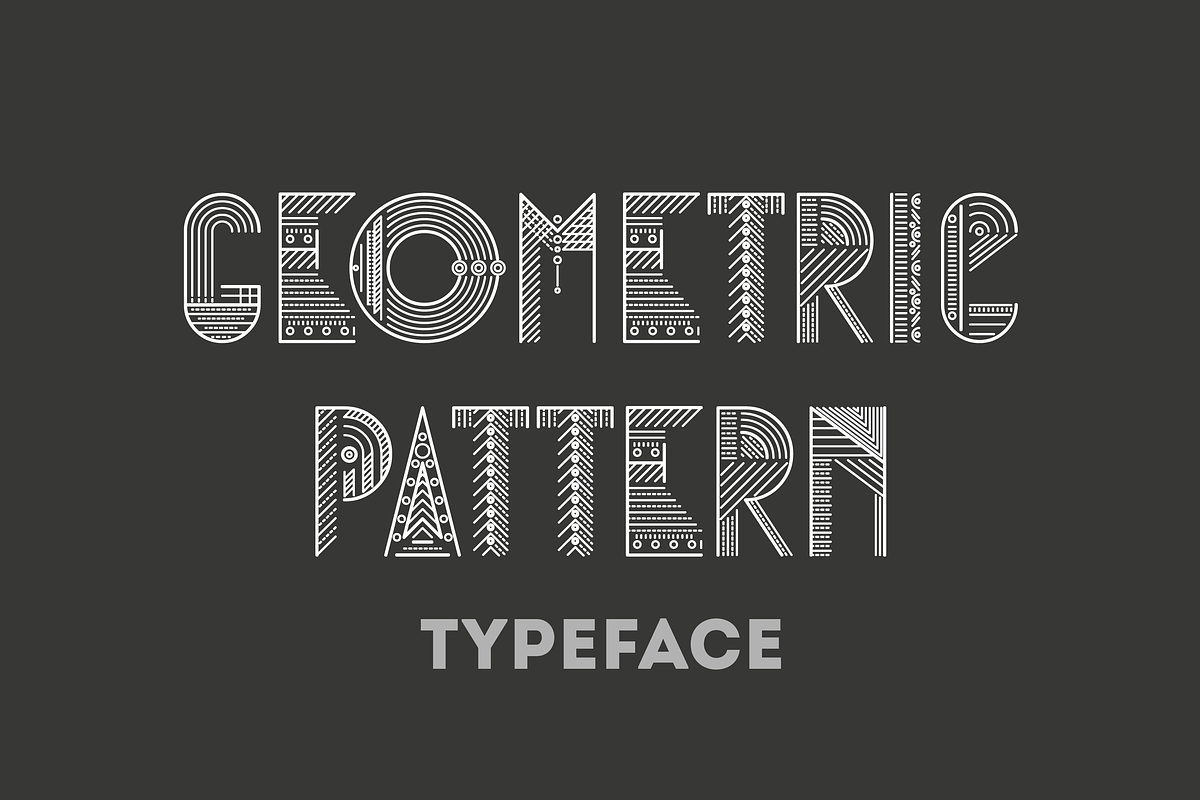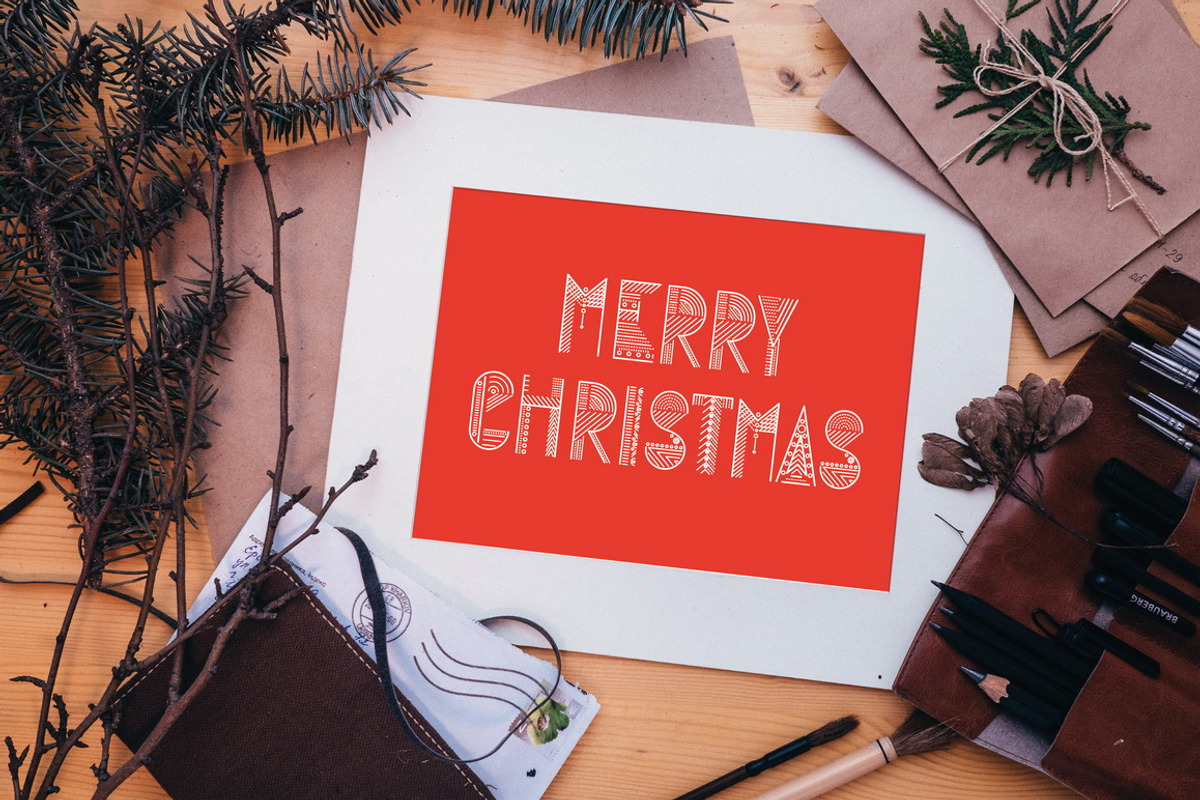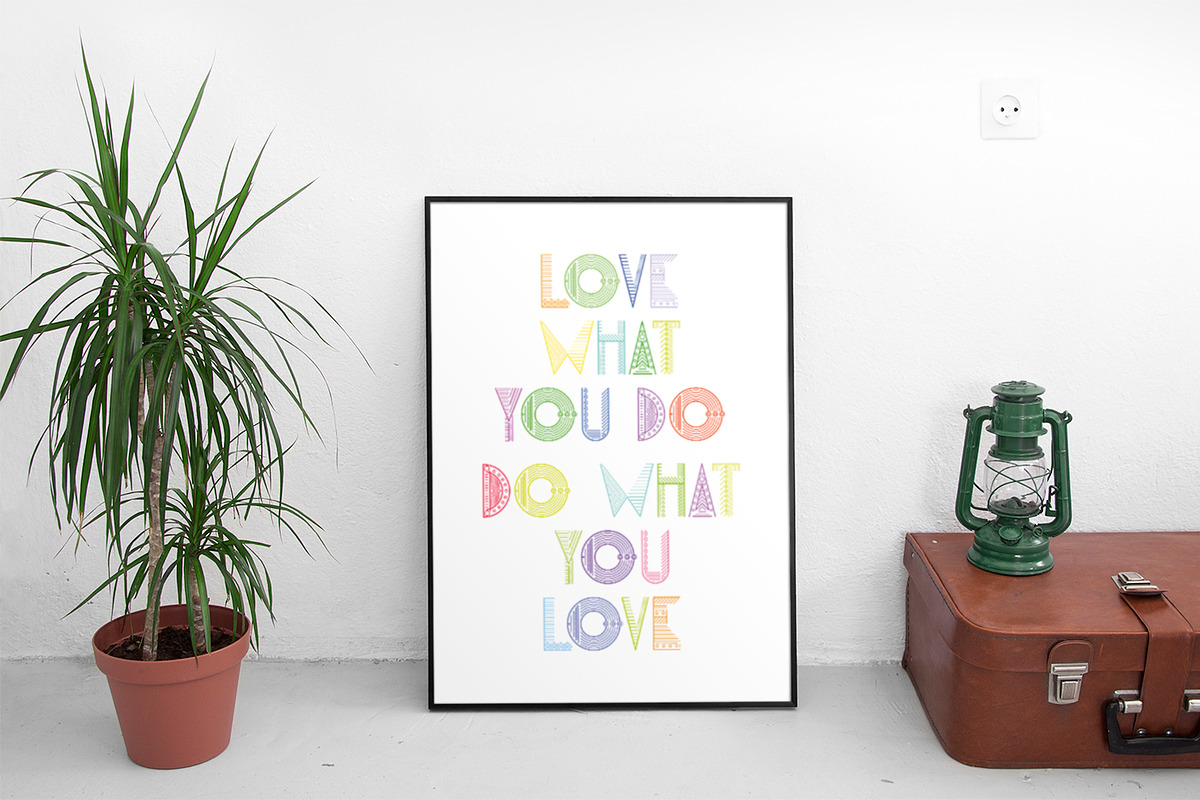
Geometric pattern typeface
Geometric pattern typeface by pixelwerk is a font selected for branding, posters, packaging, typography.
- Please note that both uppercase and lowercase letters look the same!
Why Geometric pattern typeface is worth a look
Geometric pattern typeface by pixelwerk fits naturally into Branding, posters, packaging, typography.